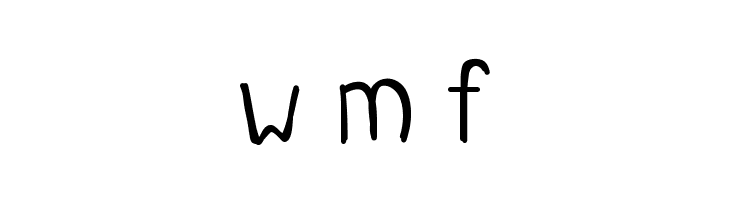
( Fonts by Jens R. Ziehn - www.filmhimmel.com )
A casual handwritten font with smooth, fluid strokes and a personal touch.
( Fonts by Kreative Korporation - www.kreativekorp.com )
A casual handwritten font with fluid, slightly irregular characters.
( Fonts by Kreative Korporation - www.kreativekorp.com )
A playful, hand-drawn font with a casual and informal style.
( Fonts by Khrys Bosland )
A playful handwritten font with thin, uneven strokes and a casual style.
( Fonts by Vanessa Bays - bythebutterfly.com )
A thin, italic handwritten font with a casual and modern style.
( Fonts by Vanessa Bays - bythebutterfly.com )
A playful, thin handwritten font with a casual and friendly style.
( Fonts by Lee Batchelor http://leeviathan.com/portfolio/fonts/ )
A casual, handwritten font with a playful and dynamic style.
( Font by Jayvee D. Enaguas - grandchaos9000.deviantart.com )
A casual, italic font with rounded, smooth characters.
( Fonts by Vanessa Bays - bythebutterfly.com )
A playful, handwritten font with tall, narrow characters and rounded edges.
A playful, casual handwritten font with smooth, flowing letterforms.
( Fonts by Des Gomez )
( www.alve.se )
A playful, handwritten font with bold, rounded strokes.
A playful, hand-drawn font with a casual and artistic style.
A playful, handwritten font with bold strokes and a casual, friendly appearance.
( illustrateddaydreams.tumblr.com/ )
A playful, hand-drawn font with bold strokes and a whimsical style.
( Fonts by Khrys Bosland )
A playful, handwritten font with a casual and informal style.
( Fonts by Des Gomez )
( Fonts by Khrys Bosland )
A playful, handwritten font with rounded, informal letterforms.
( Fonts by Des Gomez )
A playful, handwritten font with tall, narrow characters and a whimsical style.
A playful, handwritten font with a casual, chalkboard style.
A playful, handwritten font with rounded, consistent strokes and a casual vibe.